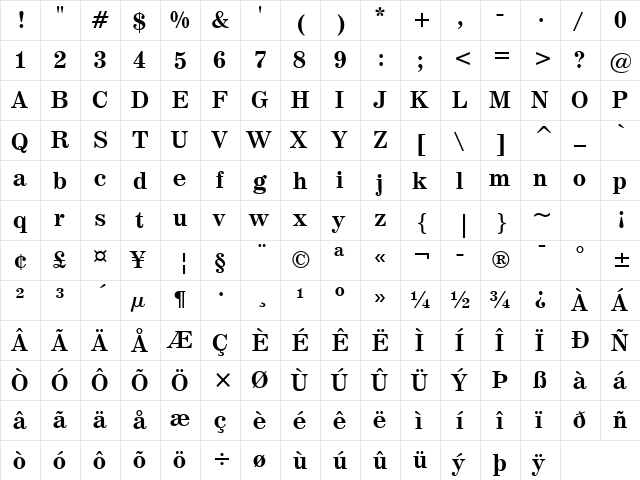
Century725 BT Bold
Design Context for Century725 BT Typeface
Century725 BT is a composed and adaptable typeface that performs quietly and consistently across a wide range of design contexts. Its bold stroke weight gives it real presence on the page.